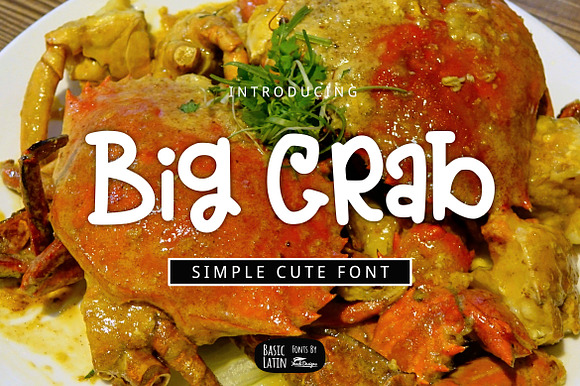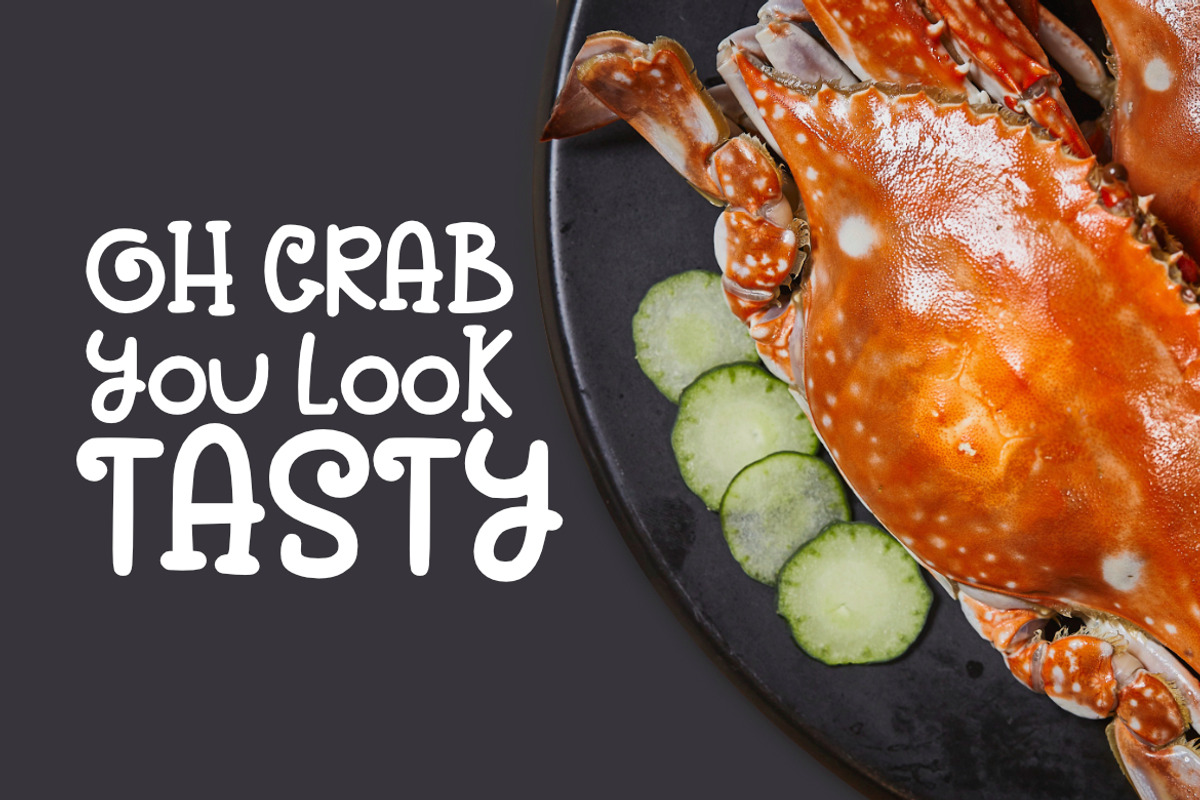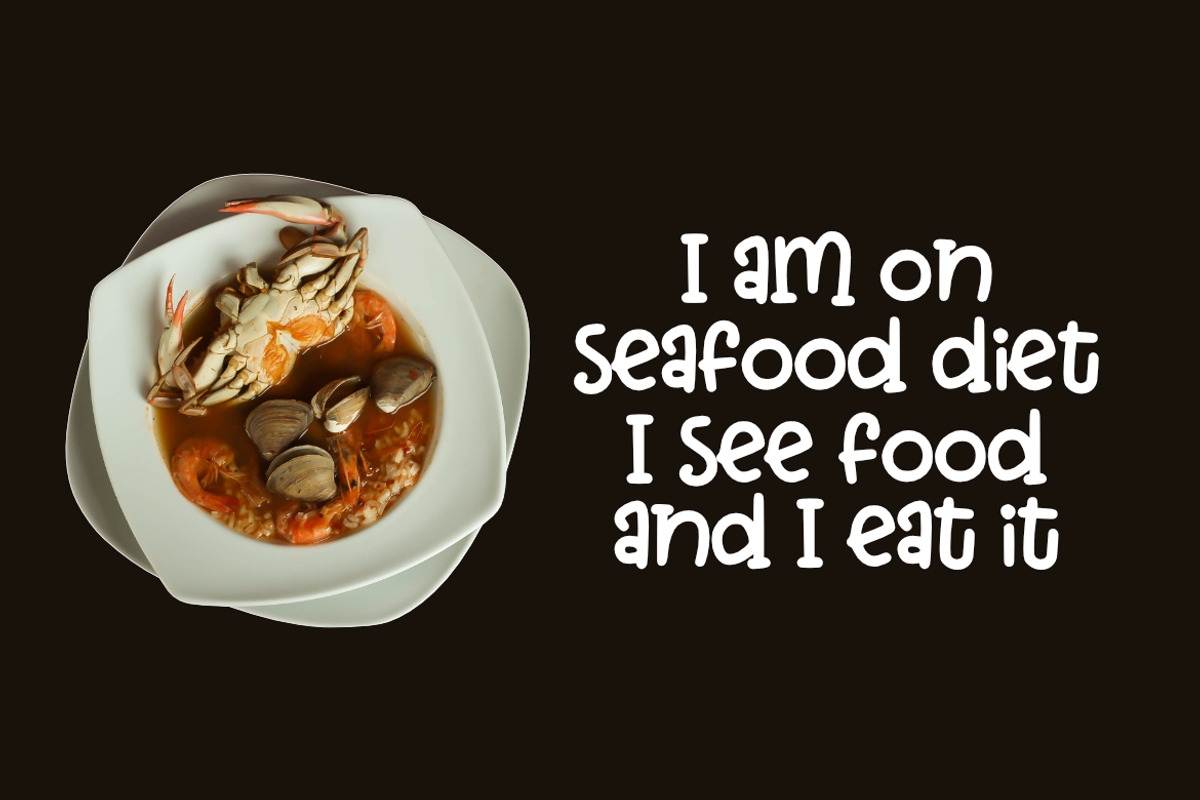
Big Crab Font
Big Crab Font is simple cute multipurpose handmade font, suitable for many project children book, quotes, logo , heading , title etc.
Big Crab Font by YandiDesigns fits naturally into Branding, posters, packaging, typography.